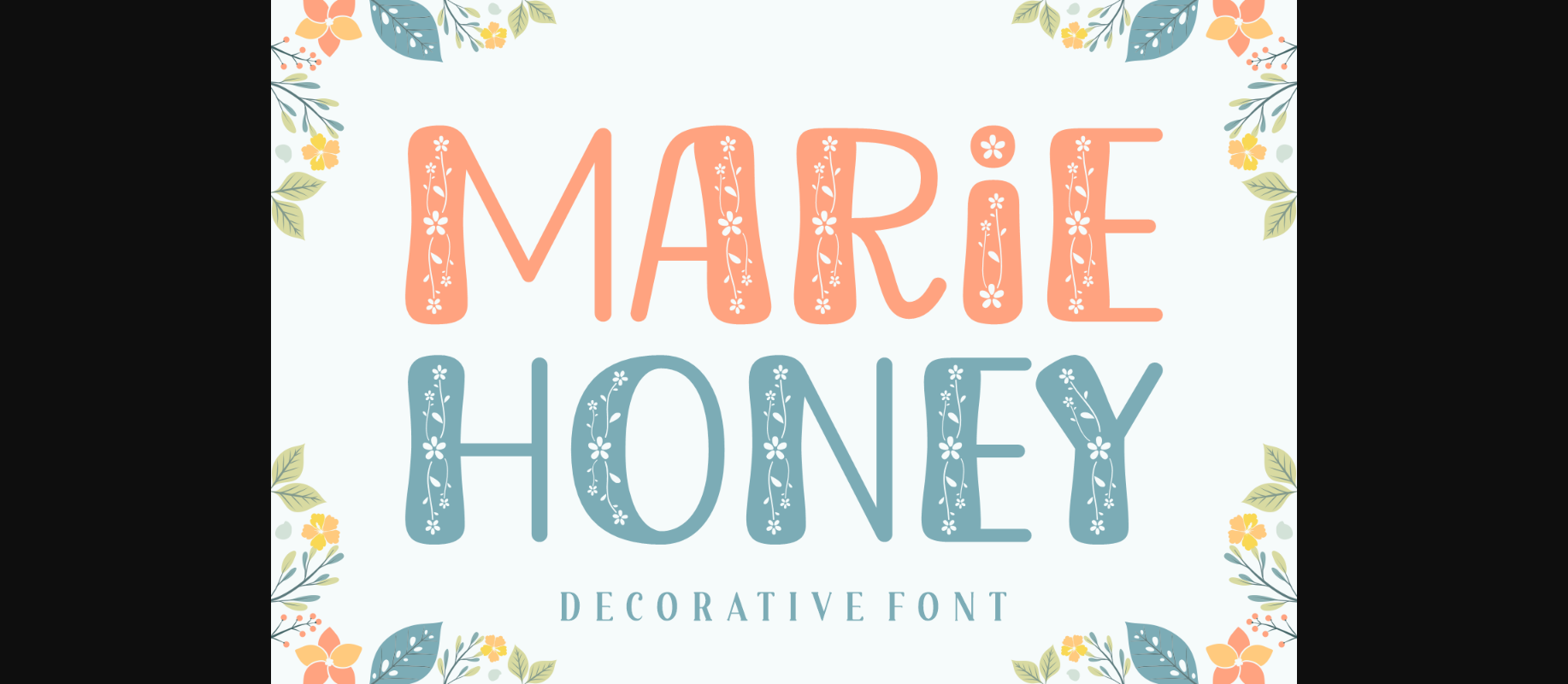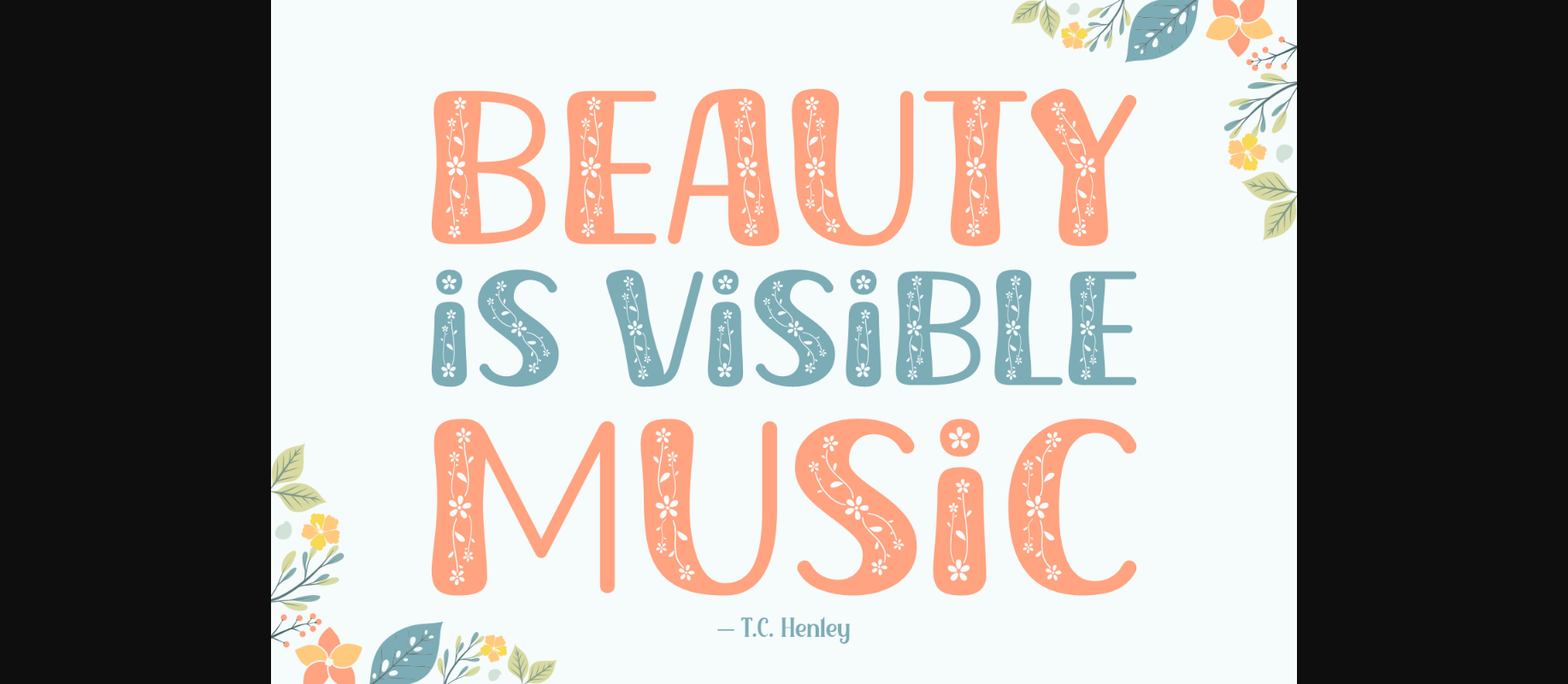
About Marie Honey Font
Marie Honey is a cool and delicate decorative font. No matter the topic, this font will be an incredible asset to your fonts’ library, as it has the potential to elevate any creation.